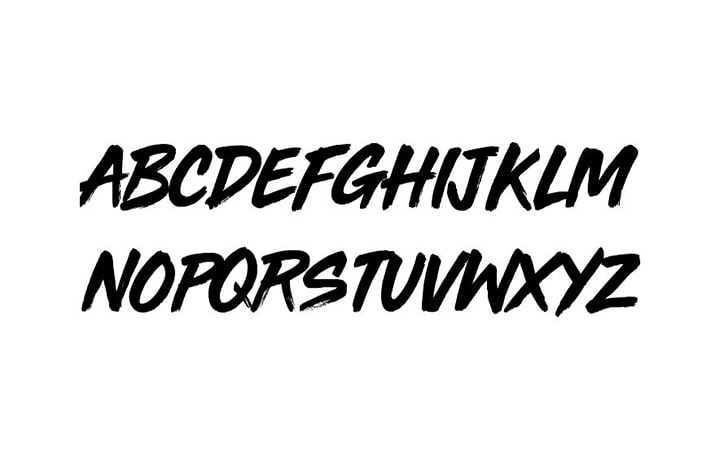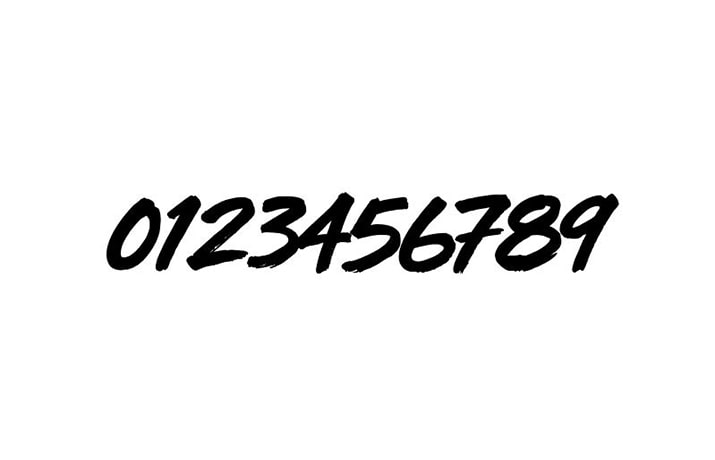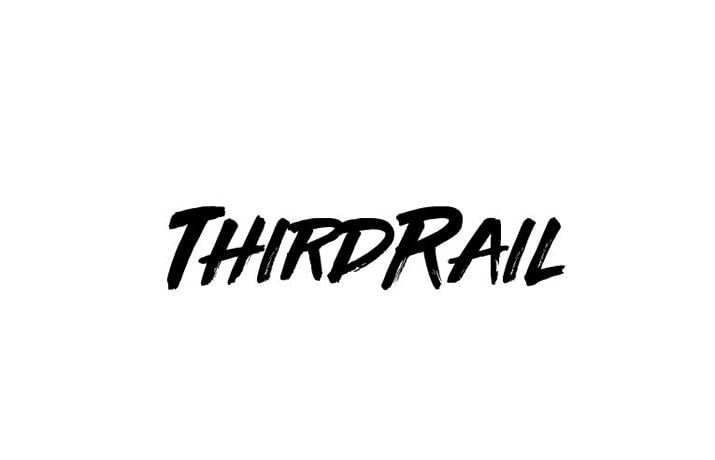
Third Rail Font is a best-case collection of gorgeous script brush fonts. Whether you” re looking to decorate a snowboard or fetch an awesome tattoo design, it should have you covered.
It was created by BLKBK that is an independent font foundry and graphics studio specializing in type design and custom fonts.
The designer has made all the letters with brushes which add more beauty to the entire typeface. And the most important thing is to make it a unique font.
When you look at its texture, look for bolder strokes, adding depth to it. Also, you will get the brush effect inside each letter. It helps to reveal its extra beauty.
Among its profound features, this typeface can be used in title designing, composing books, poster advertising, business cards, invitation cards, stationery, fashion magazines, and many other places.
Moreover, it would be a good way to make it useful for game development or app development.
This handwritten font has 229 unique glyphs and 1000 units per em. Additionally, the Truetype file format should contain more than 200 characters.